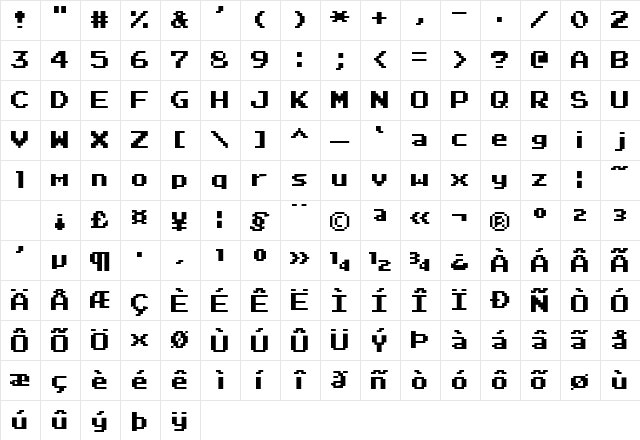
RetroVille NC Regular
Design Context for RetroVille NC Typeface
RetroVille NC has the warm character of retro typography — evoking diners, record sleeves, and the golden age of print advertising.
Font Pairing: Combine RetroVille NC with a simple slab or neutral sans — period-accurate companions reinforce the vintage feel without competing for attention.
Pro Tip: Lean into RetroVille NC's period character by pairing it with aged paper textures, muted colour palettes, and vintage illustration styles.